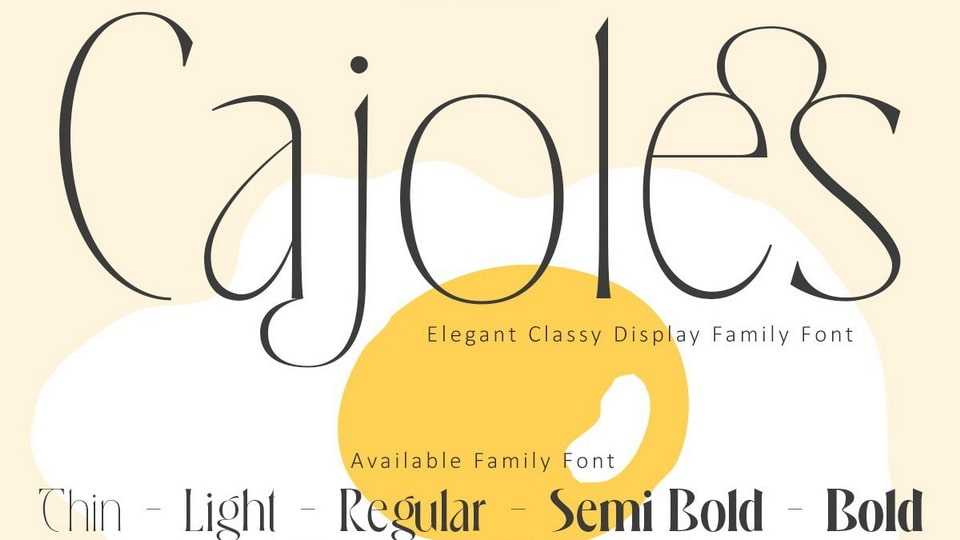
Download Cajoles font, a modern typeface family inspired by the elegance of Art Nouveau! Cajoles draws its charm from the sophistication of 1910s Italian lake posters, blending an Art Nouveau flair with contemporary design.